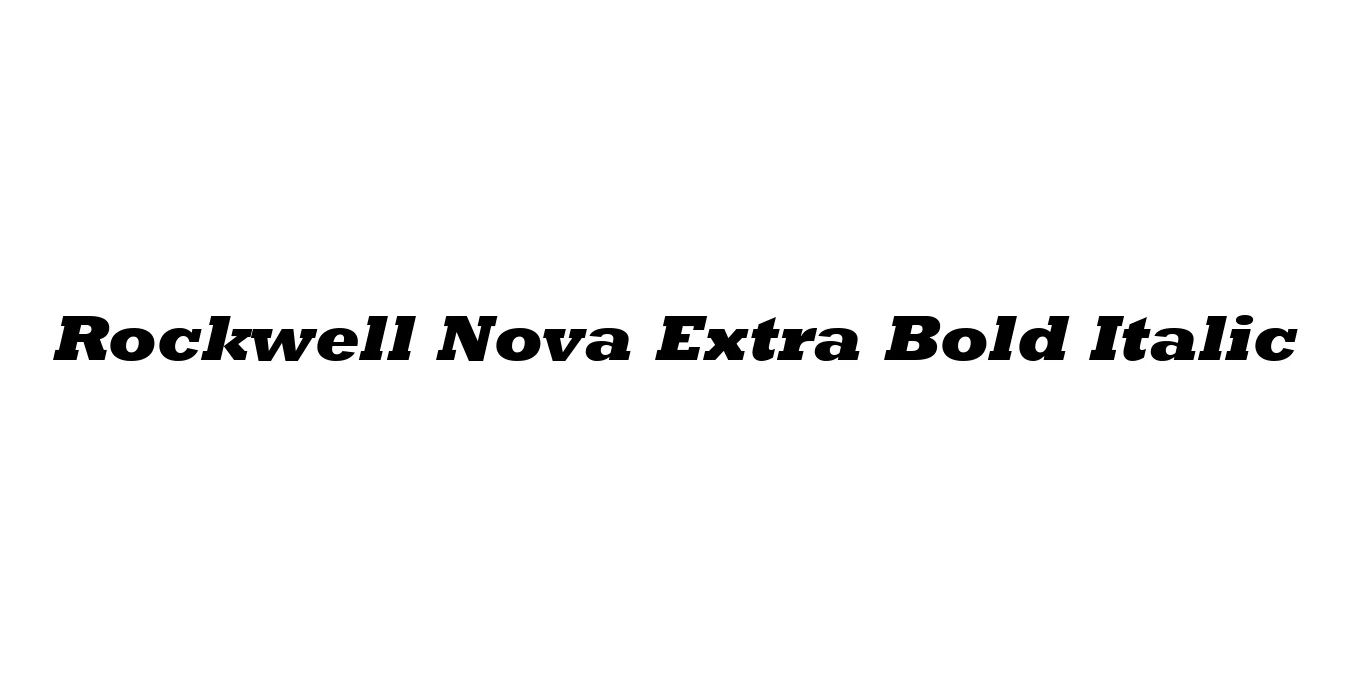
Rockwell Nova Extra Bold Italic
Designed by Monotype Design Studio
Rockwell Nova is an expanded and modernized version of the classic Rockwell slab serif typeface. Originally designed by Frank Hinman Pierpont in 1934, the Nova iteration was developed to provide a more comprehensive range of weights and styles for digital environments. The Extra Bold Italic weight is particularly striking, combining the massive, architectural presence of geometric slab serifs with a dynamic forward slant that adds a sense of urgency and motion to the text.
Characterized by its thick, blocky serifs and nearly uniform stroke weight, this font belongs to the Slab Serif or Egyptian classification. It maintains the rigid, geometric structure that made the original Rockwell a staple for industrial and corporate communication while offering improved legibility and character support. Its heavy weight makes it a powerhouse for display use, ensuring that titles and branding elements command immediate attention with a sense of stability and authority.
Rockwell Nova Extra Bold Italic Best Uses
Perfect for high-impact headlines that require a strong, masculine presence.
Excellent for logos in the construction, tech, or industrial sectors.
Ideal for major section headers and call-outs in magazine layouts.
Highly effective for large-scale typography where visibility and weight are crucial.